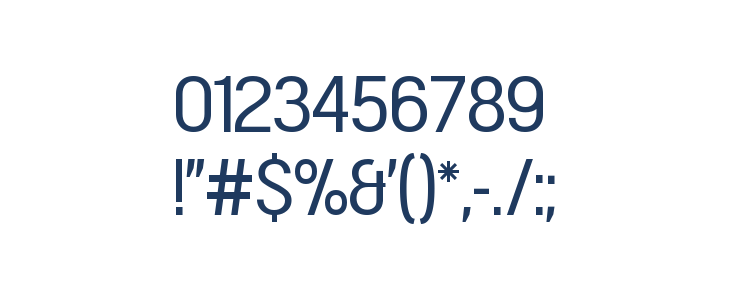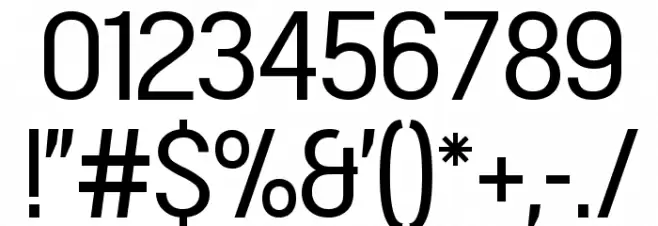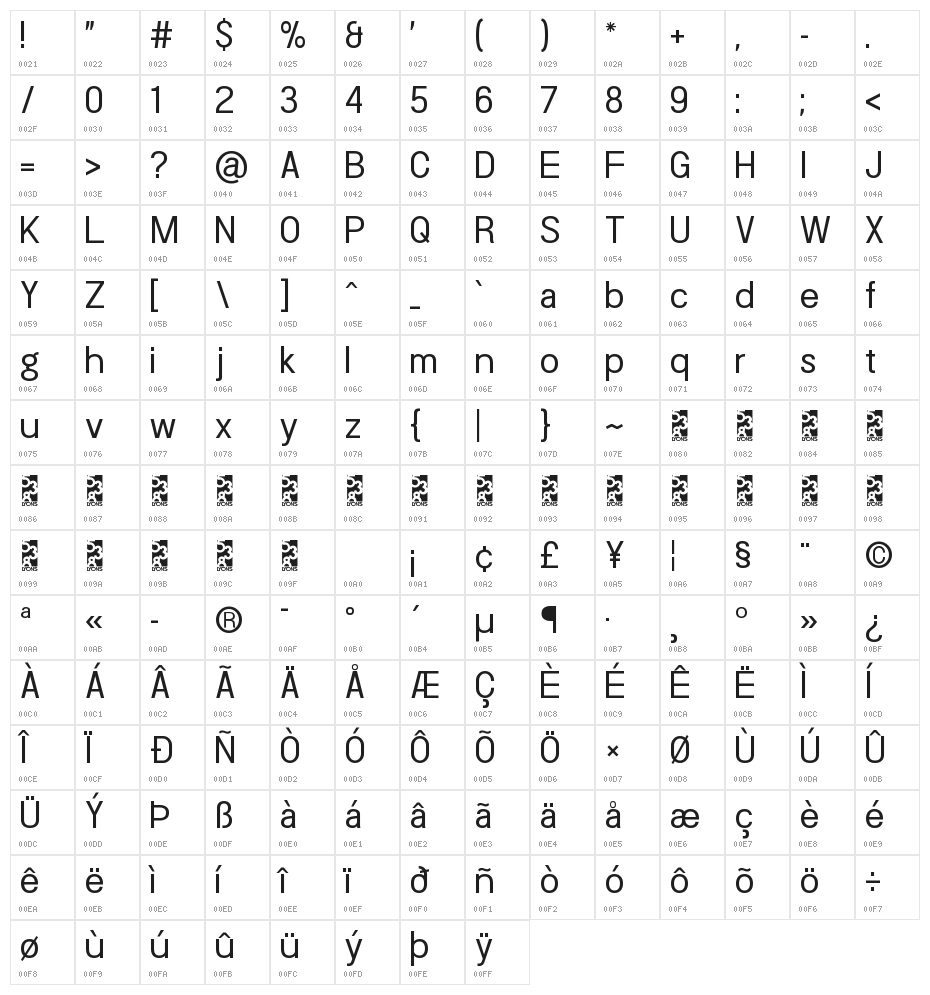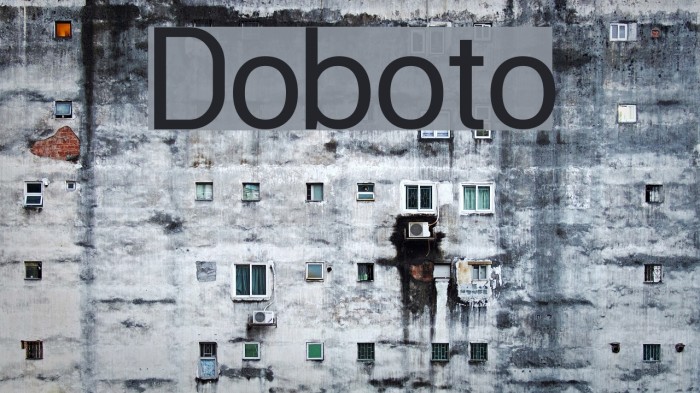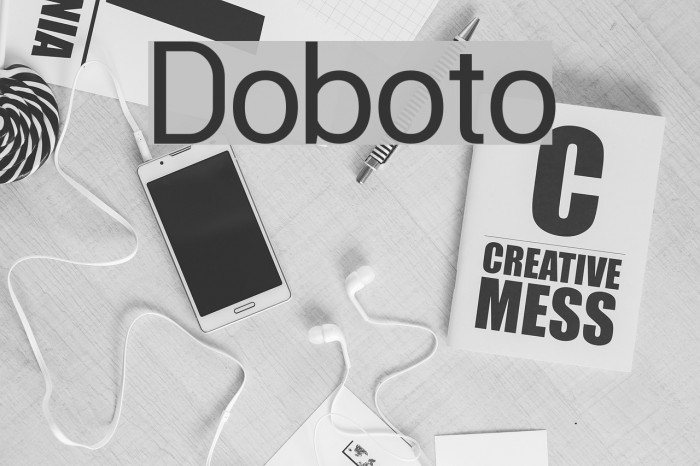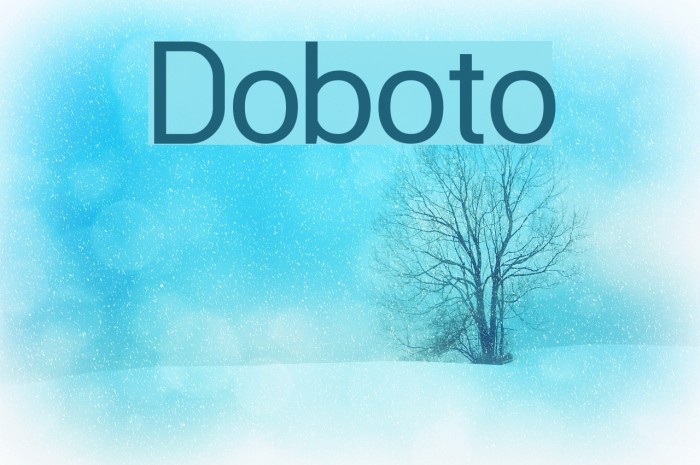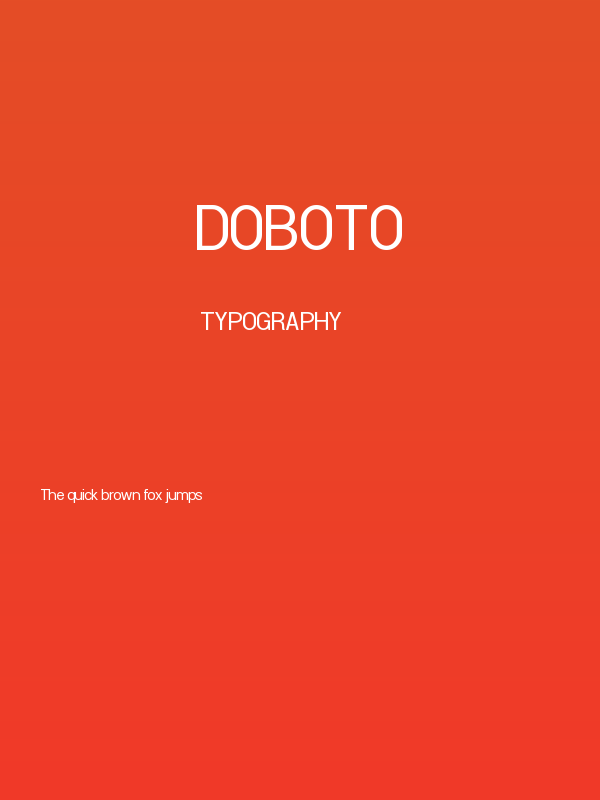
Doboto Font
Doboto Description
This font exhibits a clean and modern sans-serif style, characterized by its uniform stroke width and geometric shapes. The uppercase letters are bold and assertive, while the lowercase letters maintain a consistent height and spacing, ensuring readability. The numerals are clear and distinct, matching the overall aesthetic of simplicity and functionality. Special characters are well-defined, making this font versatile for various applications. Its straightforward design makes it suitable for both digital and print media, providing a professional and contemporary look.